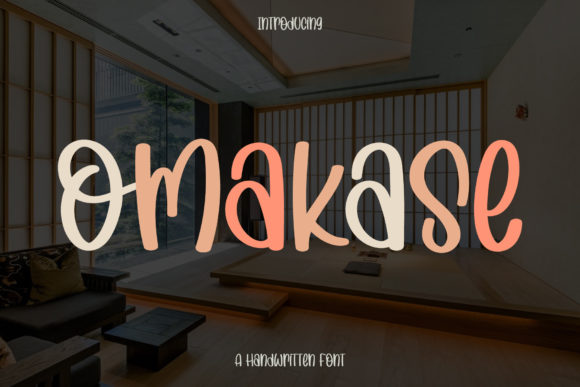
Introducing Omakase Font, the perfect font for adding a touch of personality to your next project. This beautiful script font is perfect for creating elegant and sophisticated designs.
Omakase is a modern handwritten font that is both friendly and stylish. It's perfect for adding a personal touch to your projects, whether you're creating wedding invitations, birthday cards, or social media posts.
With its beautiful curves and flowing lines, Omakase is a truly unique font that will make your designs stand out from the crowd. It's also incredibly versatile, so you can use it for a wide range of projects, from elegant invitations to fun and playful social media posts.
* It's perfect for adding a personal touch to your projects.
* It's incredibly versatile and can be used for a wide range of projects.